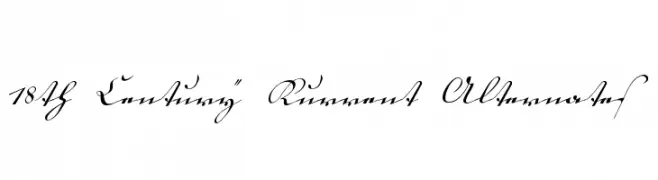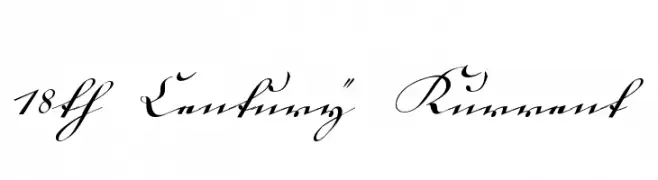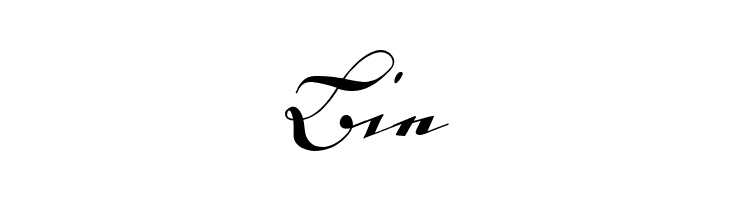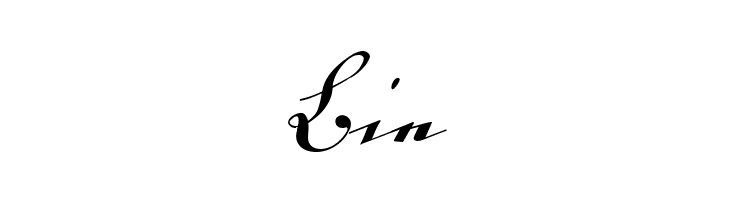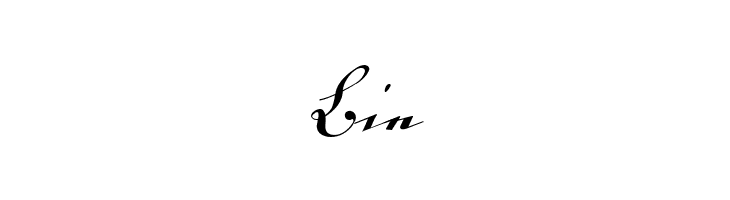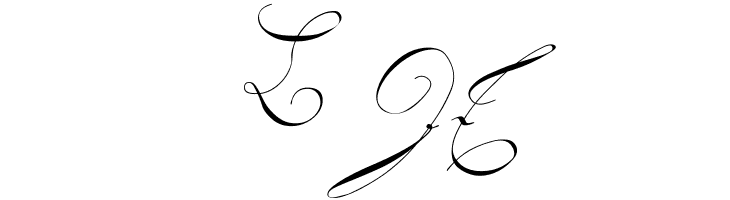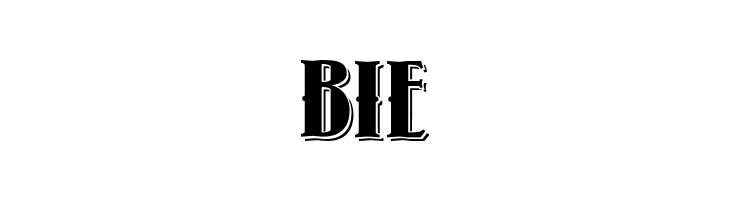
• 1873 Winchester
A bold, decorative font with a vintage Western style and three-dimensional effect.
• 1896 Regular
A bold, geometric font with a strong, block-like design.
• 18th Century Initials
An ornate script font with elaborate flourishes and high contrast, reminiscent of 18th-century calligraphy.
• 18th Century Initials
An ornate, high-contrast calligraphic font with elaborate flourishes, ideal for vintage and decorative projects.
• 18th Century Kurrent
An elegant, historical script font with intricate flourishes and a vintage charm.
• 18th Century Kurrent Alternates
An elegant, cursive script font inspired by 18th-century handwriting.
• 18th Century Kurrent Start
An elegant, high-contrast script font with ornate flourishes.
• 18th Century Kurrent Start
An elegant, ornate script font inspired by 18th-century calligraphy.
• 18th Century Kurrent Text
An elegant, flowing script with intricate flourishes, reminiscent of 18th-century handwriting.
• 18th Century Kurrent Text
An elegant, ornate script font inspired by 18th-century handwriting.